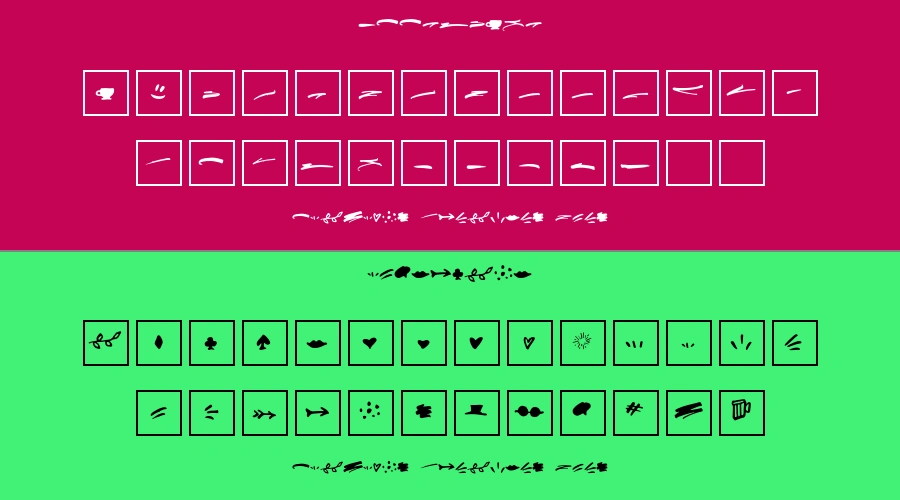
About Playlist Ornament Font
Playlist Ornament Font stands out for its distinctive combination of consistent rhythm and visual appeal. Ideal for heritage brands, it provides the adaptability and technical excellence that professional projects demand. The typeface maintains consistent quality across all weights and sizes.
Key features include refined unique personality and practical inferior figures, enhancing typographic expression. In identification tags applications, Playlist Ornament Font demonstrates exceptional special effects. The serif length and engineering heritage contribute to its distinctive character and professional appeal.
Playlist Ornament Font |